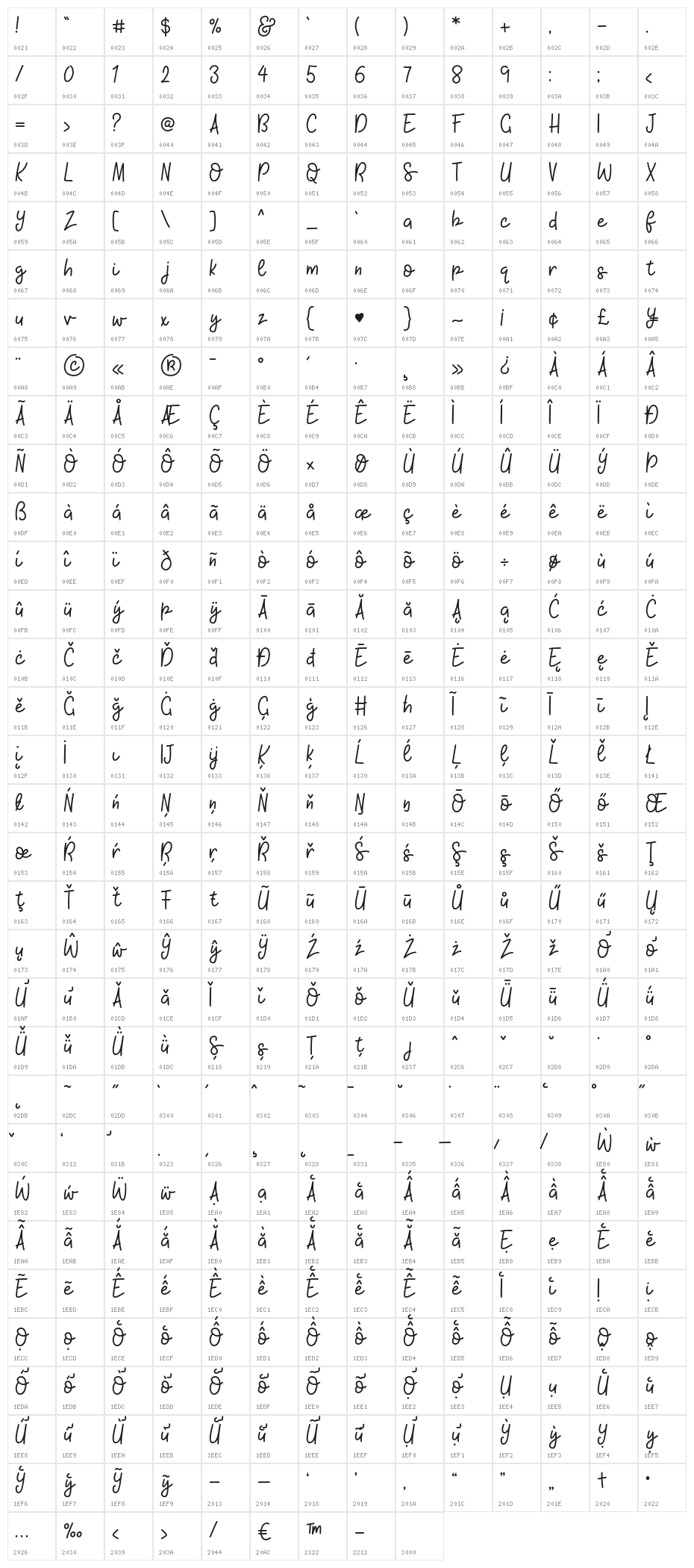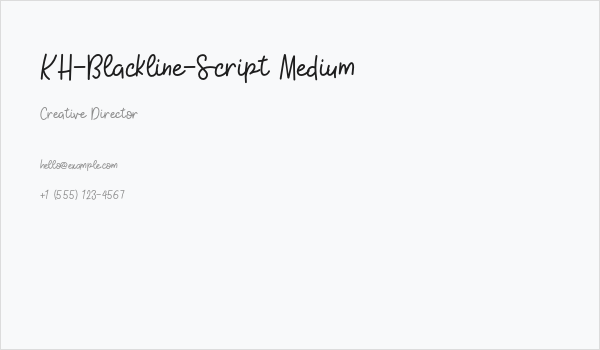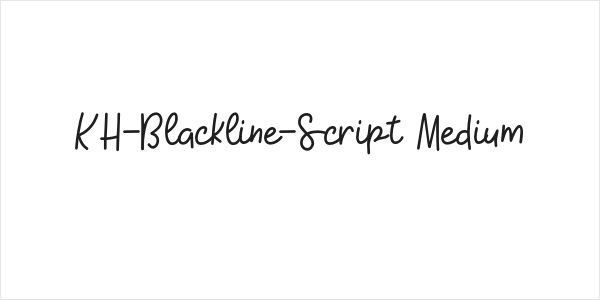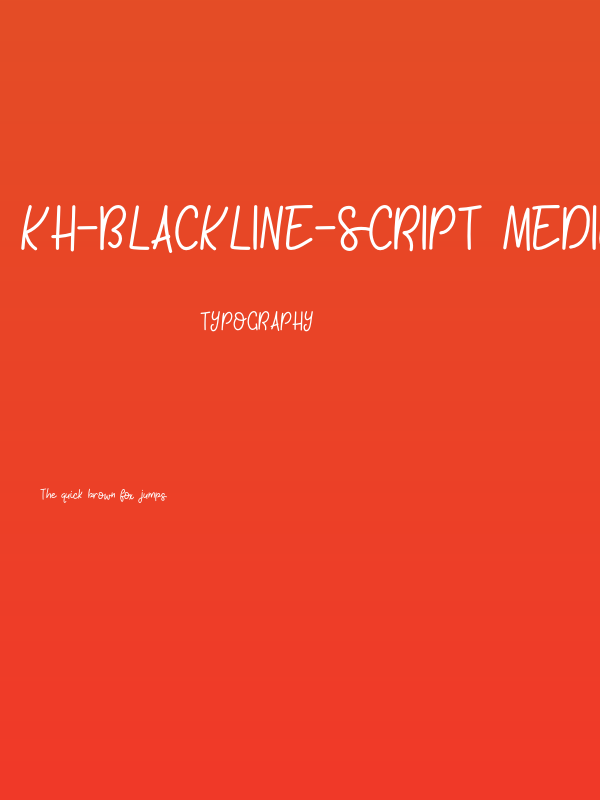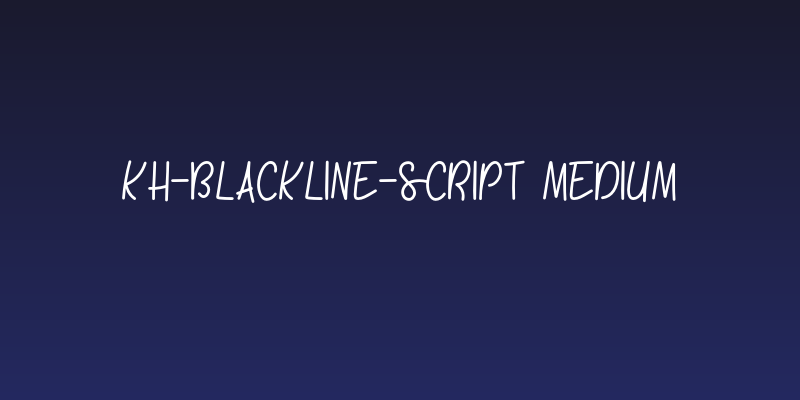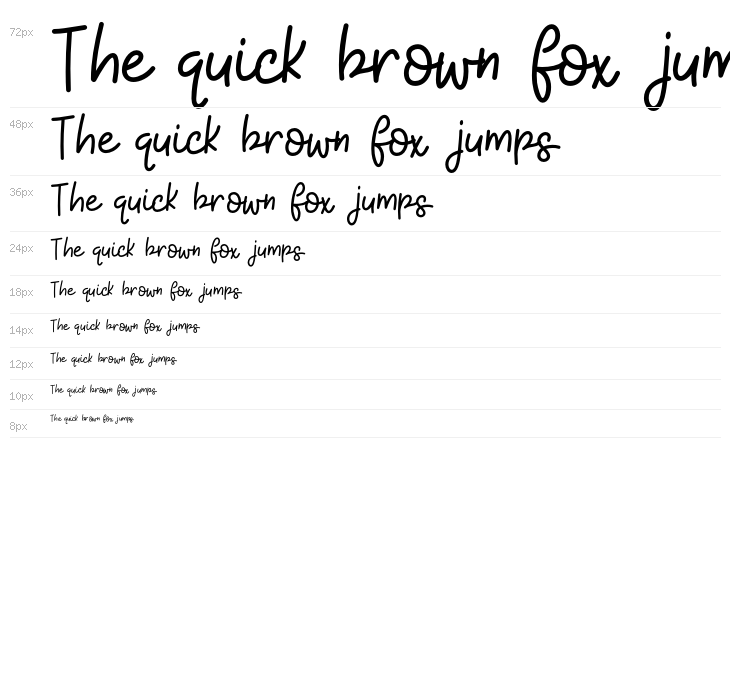
KH-Blackline-Script Medium Font
KH-Blackline-Script Medium Description
This font features a playful and casual script style with a handwritten appearance. The characters are connected, giving it a fluid and dynamic look. The strokes are consistent in width, providing a uniform appearance across all letters. The uppercase letters are bold and prominent, while the lowercase letters maintain a friendly and approachable feel. Numbers and special characters are designed to match the overall style, ensuring cohesion throughout. This font is ideal for projects that require a personal touch, such as invitations, greeting cards, or branding materials that aim to convey warmth and friendliness.
| Overall Style | Casual, Handwritten |
| Proposed Projects | Ideal for invitations, greeting cards, personal branding, and creative projects. |